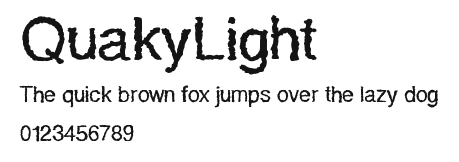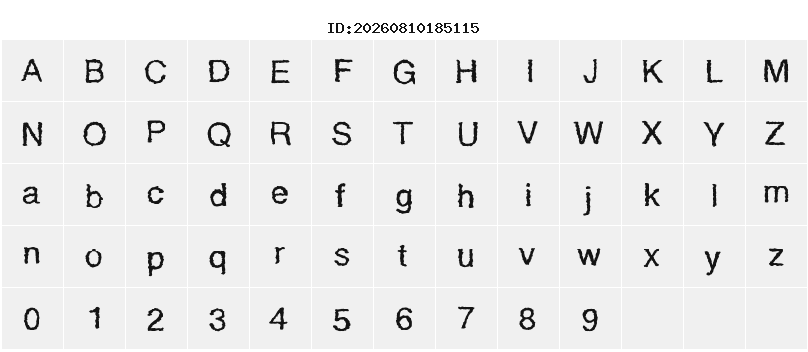
• Font Name: QuakyLight
• Font Style: Light
• Full Font Name: QuakyLight
About QuakyLight.ttf
QuakyLight.ttf is a modern, elegant sans-serif font designed for ultimate readability and visual harmony. Perfect for branding, headlines, web design, and print materials.